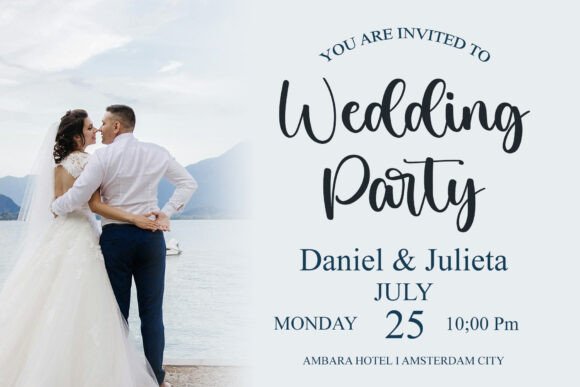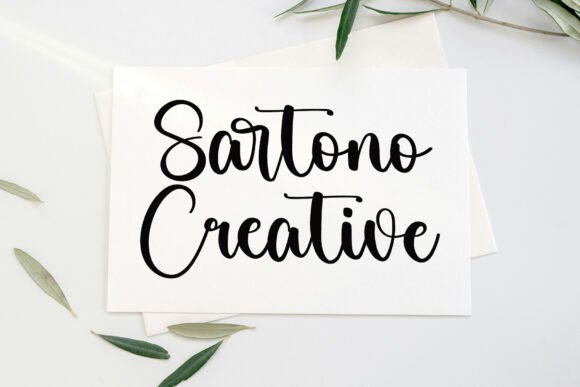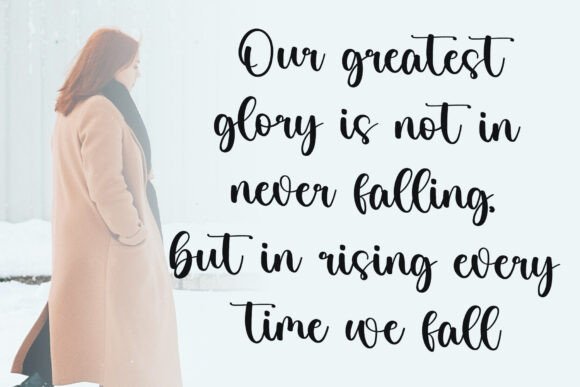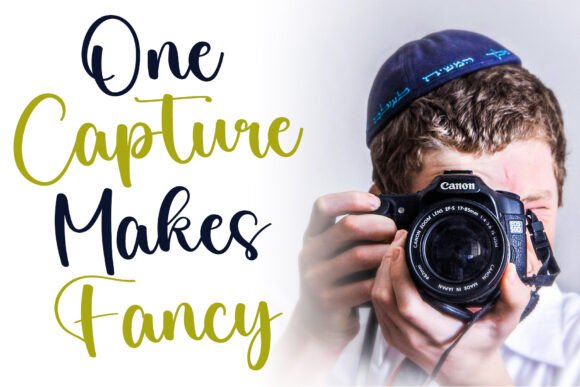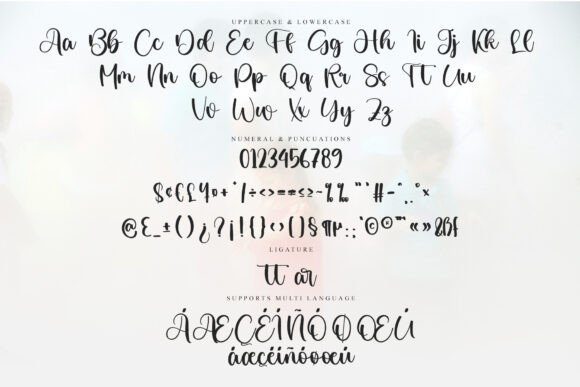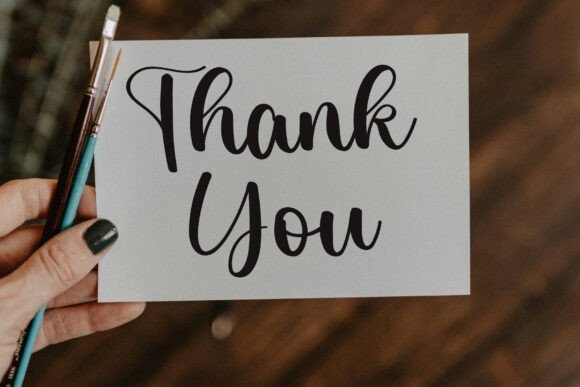
Introducing Dashboard Font: Elevate Your Designs with a Unique Blend of Elegance and Playfulness
In the world of typography, fonts play a crucial role in conveying the tone and personality of a design. For designers and crafters seeking a font that combines the charm of handwritten strokes with a bold and playful display style, look no further than Dashboard Font. This extraordinary font is designed to add a fun yet elegant touch to any creative project, making it perfect for a wide range of applications.
The Beauty of Handwritten Strokes
Dashboard Font boasts smooth curves and artistic flair, giving it a distinctive and charming personality. The font’s handwritten strokes evoke a sense of whimsy and playfulness, making it ideal for designs that require a touch of personality. Whether you’re working on a logo, branding materials, or social media graphics, Dashboard Font is sure to make your design stand out.
A Bold and Playful Display Style
What sets Dashboard Font apart is its bold and playful display style. The font’s confident and adventurous spirit makes it perfect for headlines, titles, and other display text. With Dashboard Font, you can add a touch of sophistication and elegance to your design while still conveying a sense of fun and playfulness.
Perfect for a Wide Range of Designs
Dashboard Font is incredibly versatile and can be used for a wide range of designs, including:
- Logos and branding materials: Add a touch of personality to your brand with Dashboard Font’s unique and charming style.
- Social media graphics: Make your social media posts stand out with Dashboard Font’s bold and playful display style.
- Invitations and event materials: Add a touch of elegance and sophistication to your event materials with Dashboard Font.
- Packaging and product design: Use Dashboard Font to add a fun and playful touch to your product packaging.
Why Choose Dashboard Font?
So why choose Dashboard Font for your next design project? Here are just a few reasons:
- Unique and distinctive style: Dashboard Font’s blend of handwritten strokes and bold display style makes it truly one-of-a-kind.
- Versatile and adaptable: Use Dashboard Font for a wide range of designs, from logos and branding materials to social media graphics and event materials.
- Elegant and sophisticated: Add a touch of elegance and sophistication to your design with Dashboard Font’s smooth curves and artistic flair.
- Fun and playful: Use Dashboard Font to add a fun and playful touch to your design, perfect for brands and designers who want to stand out.
Tips for Using Dashboard Font
To get the most out of Dashboard Font, here are a few tips:
- Use it as a headline font: Dashboard Font’s bold and playful display style makes it perfect for headlines and titles.
- Pair it with a simple font: Pair Dashboard Font with a simple font to create a striking contrast and add visual interest to your design.
- Experiment with colors and textures: Use Dashboard Font to add a pop of color and texture to your design.
In conclusion, Dashboard Font is an extraordinary font that combines the beauty of handwritten strokes with a bold and playful display style. With its smooth curves, artistic flair, and charming personality, this font is perfect for adding a fun yet elegant touch to any creative project. Whether you’re a designer or crafter, Dashboard Font is sure to deliver a truly remarkable design experience.